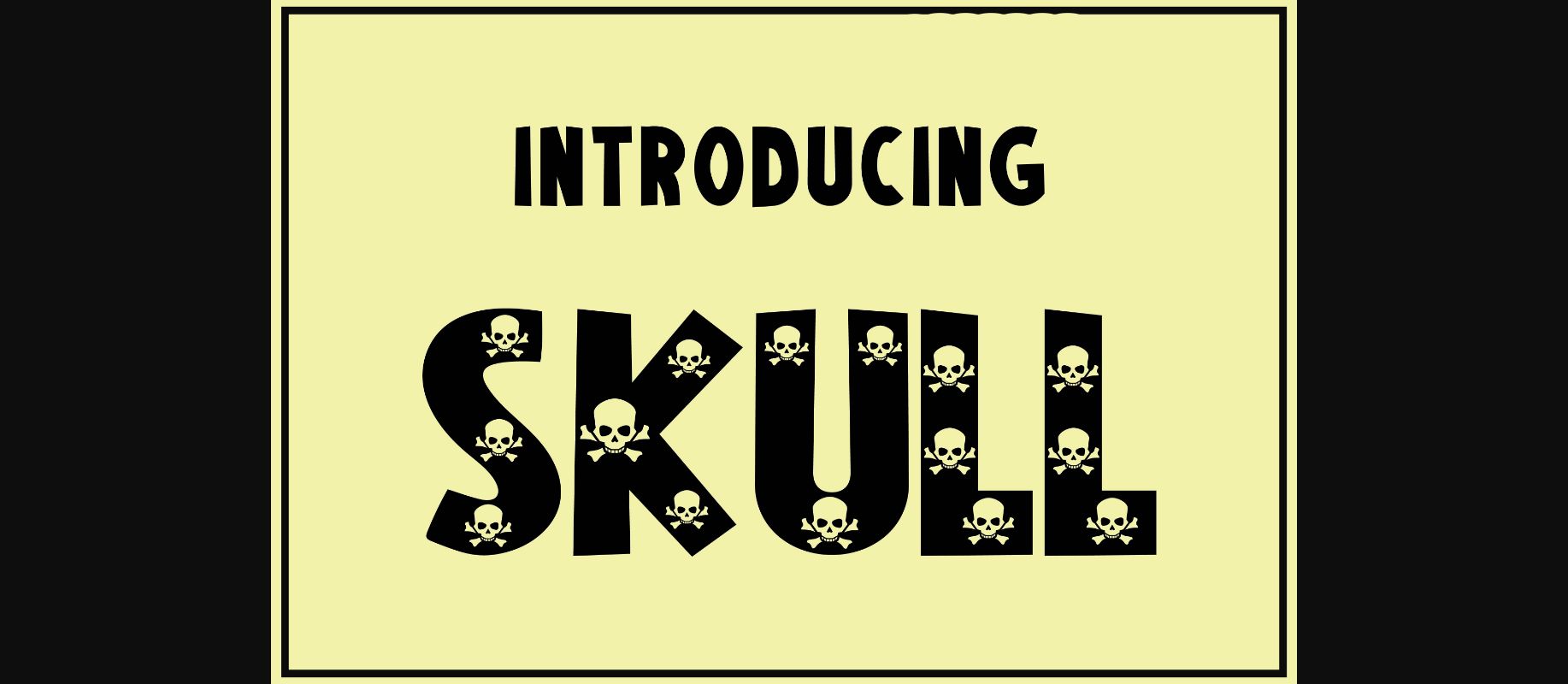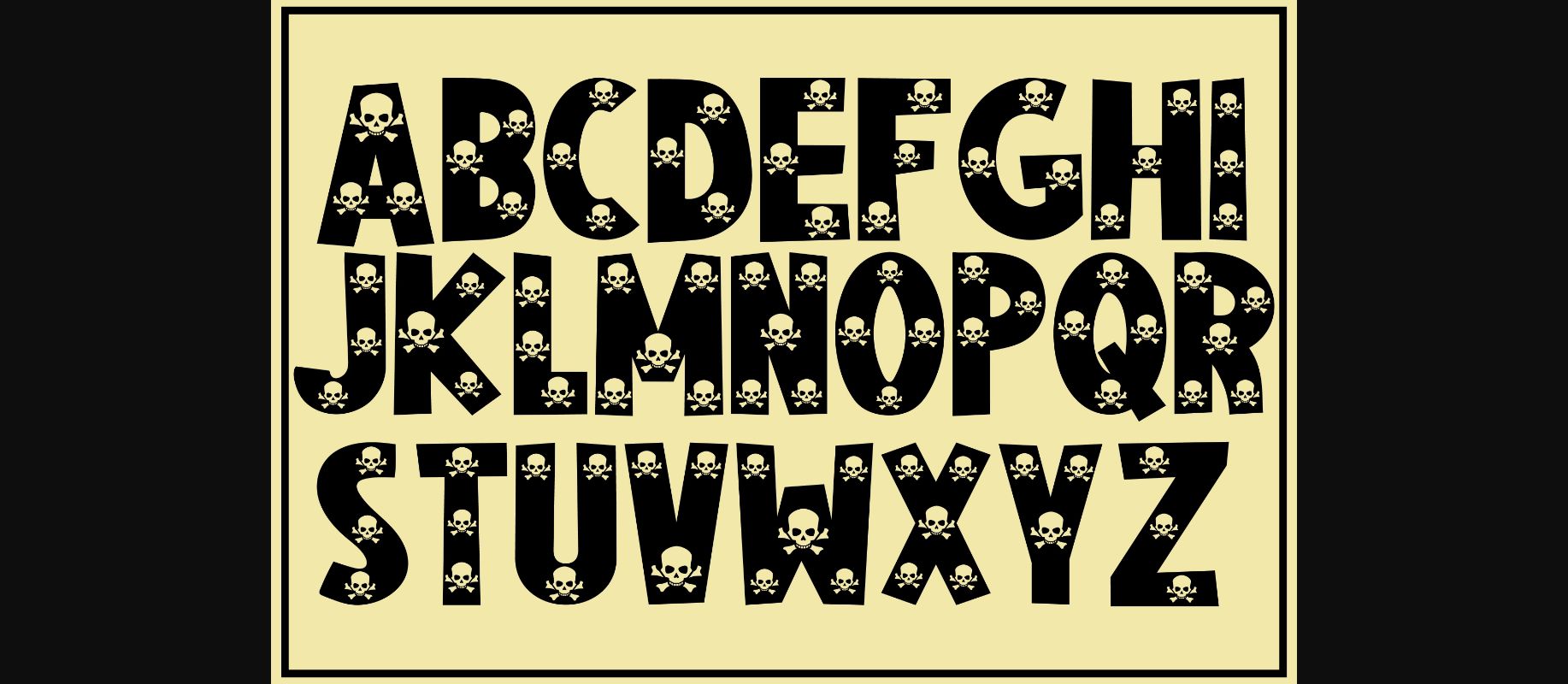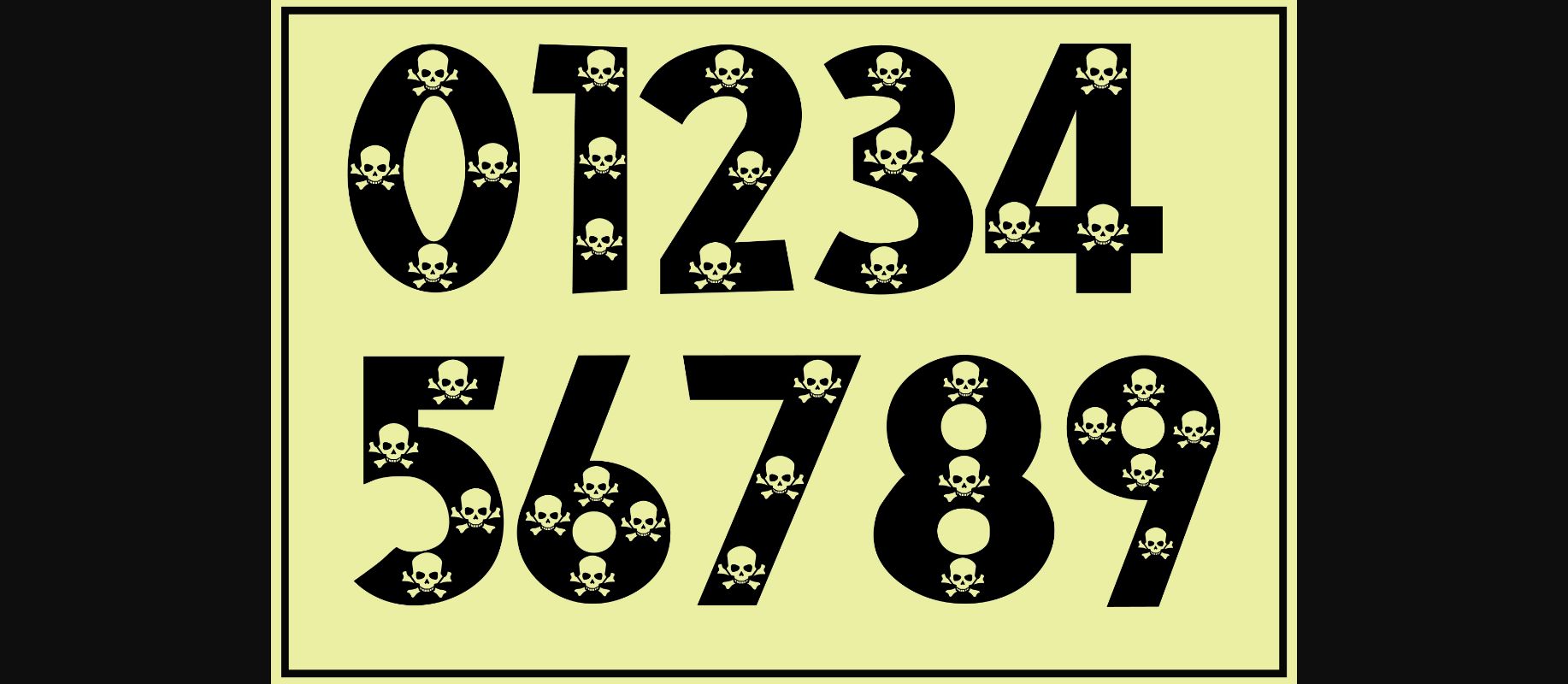
About Skull Font
Skull is a “dangerous” decorative font. You can see creepy skull designs inside the character’s set. Use them for danger signs, warning decorations, Halloween cards, t-shirts, covers, posters, etc.